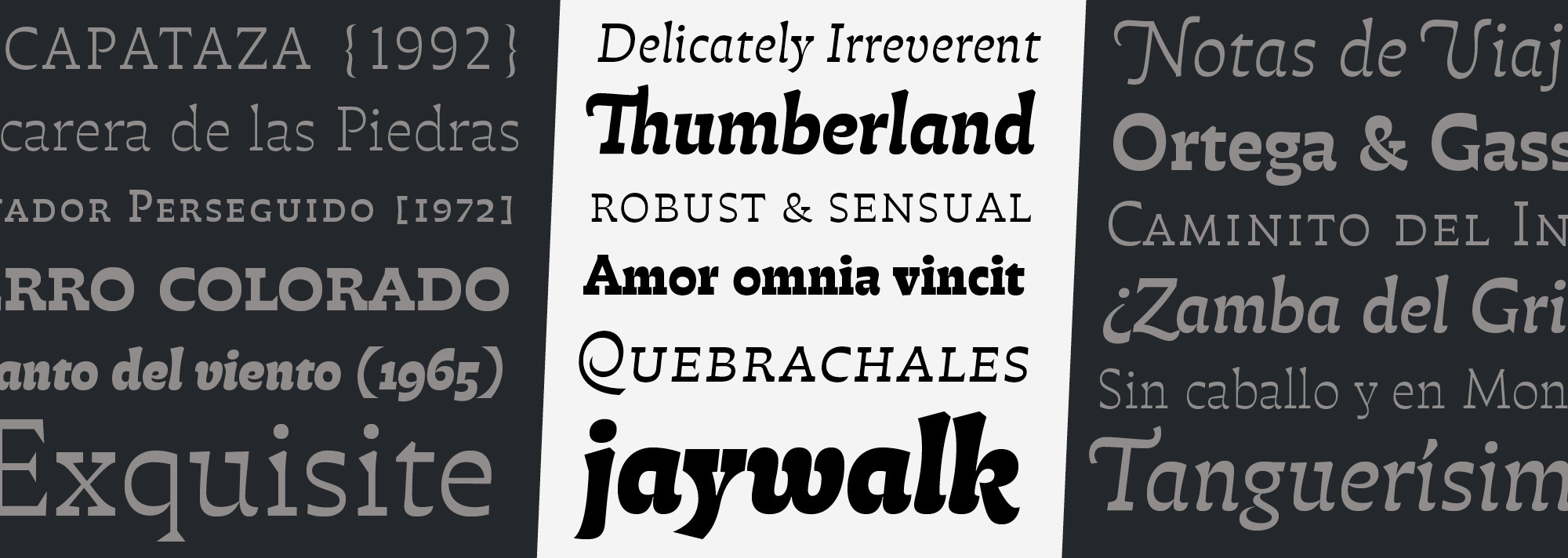
Atahualpa Font
Atahualpa Font is perfect for Peruvian cultural organizations, Andean heritage preservation societies, indigenous rights advocacy groups, South American tourism companies, traditional craft cooperatives, and pre-Columbian art museums. Its regal character makes it ideal for historical documentary productions, Incan heritage sites, traditional textile brands, indigenous education programs, Andean mountain expeditions, and any project requiring imperial dignity with ancient Peruvian heritage and indigenous cultural authenticity appeal.
This font is exciting because it honors the magnificent legacy of the last great Incan emperor while delivering exceptional functionality for organizations dedicated to preserving and celebrating indigenous South American culture and ancient civilizations. The majestically crafted letterforms evoke the grandeur of Machu Picchu, the wisdom of ancient Andean cultures, and the enduring spirit of indigenous peoples, creating powerful connections with audiences who respect cultural heritage and historical significance.
The Atahualpa Font family typically includes Light, Regular, Medium, and Bold weights with imperial alternates, Andean-inspired ligatures, and cultural elements that enhance its dignified personality. This comprehensive collection enables cultural professionals to create respectful brand systems that maintain indigenous authenticity while offering flexibility for various heritage applications requiring both cultural sensitivity and contemporary educational positioning.
Whether you're developing identity systems for cultural preservation organizations, creating materials for indigenous heritage celebrations, or designing promotional content for Andean tourism experiences, Atahualpa Font Free Download delivers the imperial dignity and cultural authenticity that resonates with audiences seeking to honor and understand ancient Peruvian civilization. Its majestic presence ensures respectful brand recognition across digital platforms and print materials, making it perfect for websites, mobile applications, and cultural campaigns that celebrate indigenous heritage, imperial history, and the enduring legacy of pre-Columbian civilizations with contemporary cultural sensitivity and authentic historical reverence.